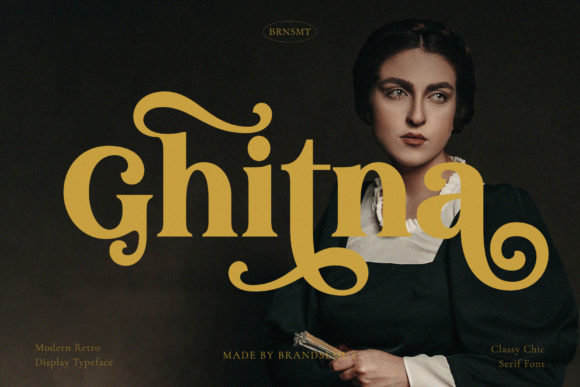
Ghitna Font: Elevate Your Crafting Ideas with a Trendy, Bold, and Highly Detailed Serif Font
The world of typography is vast and diverse, with numerous fonts available to cater to various design needs. Among these, the Ghitna Font stands out as a trendy, bold, and highly detailed serif font that can elevate a wide range of crafting ideas. In this article, we’ll explore the features and benefits of the Ghitna Font, and how it can be used to enhance your designs, from cards to branding, labels, and more.
What is Ghitna Font?
Ghitna Font is a serif font designed to make a statement. Its bold and highly detailed design makes it perfect for creating eye-catching designs that demand attention. The font is versatile and can be used for various design projects, including:
- Cards: Create stunning greeting cards, invitations, and postcards with Ghitna Font.
- Branding: Use Ghitna Font to create a bold and memorable brand identity.
- Labels: Design labels that stand out with Ghitna Font’s unique and detailed design.
- And more: Ghitna Font can be used for various other design projects, such as posters, flyers, and social media graphics.
Benefits of Using Ghitna Font
Ghitna Font offers several benefits that make it an excellent choice for designers and crafters. Some of these benefits include:
- PUA Encoding: Ghitna Font is PUA (Private Use Area) encoded, which means you can access all the glyphs and swashes with ease. This feature makes it easy to use the font and customize your designs.
- Highly Detailed Design: Ghitna Font’s highly detailed design makes it perfect for creating stunning designs that demand attention.
- Bold and Trendy: The font’s bold and trendy design makes it perfect for creating modern and eye-catching designs.
- Versatile: Ghitna Font can be used for various design projects, making it a versatile addition to your font collection.
Accessing Glyphs and Swashes with PUA Encoding
Ghitna Font’s PUA encoding makes it easy to access all the glyphs and swashes. But what are glyphs and swashes, and how can you use them in your designs?
Glyphs are special characters or symbols that can be used to enhance your designs. They can be used to add decorative elements, such as flourishes, or to create custom designs.
Swashes are decorative elements that can be used to add a touch of elegance to your designs. They can be used to create custom designs, such as borders, frames, and other decorative elements.
With Ghitna Font’s PUA encoding, you can access all the glyphs and swashes with ease. This feature makes it easy to customize your designs and create unique and eye-catching graphics.
Design Tips: Using Ghitna Font to Elevate Your Designs
Ghitna Font is a versatile font that can be used in various design projects. Here are some design tips to help you get the most out of Ghitna Font:
- Use Ghitna Font as a headline font: Ghitna Font’s bold and trendy design makes it perfect for use as a headline font. Use it to create eye-catching headlines that demand attention.
- Pair Ghitna Font with other fonts: Ghitna Font can be paired with other fonts to create a unique and eye-catching design. Experiment with different font combinations to find the perfect pairing.
- Use Ghitna Font’s glyphs and swashes: Ghitna Font’s glyphs and swashes can be used to add decorative elements to your designs. Experiment with different glyphs and swashes to find the perfect design element.
Crafting Ideas: Using Ghitna Font to Elevate Your Crafts
Ghitna Font can be used to elevate a wide range of crafting ideas. Here are some crafting ideas to get you started:
- Card making: Use Ghitna Font to create stunning greeting cards, invitations, and postcards.
- Branding: Use Ghitna Font to create a bold and memorable brand identity.
- Label making: Design labels that stand out with Ghitna Font’s unique and detailed design.
- Journaling: Use Ghitna Font to add a touch of elegance to your journal pages.
Ghitna Font is a trendy, bold, and highly detailed serif font that can elevate a wide range of crafting ideas. Its PUA encoding makes it easy to access all the glyphs and swashes, and its versatile design makes it perfect for various design projects. Whether you’re a designer, crafter, or DIY enthusiast, Ghitna Font is an excellent addition to your font collection.